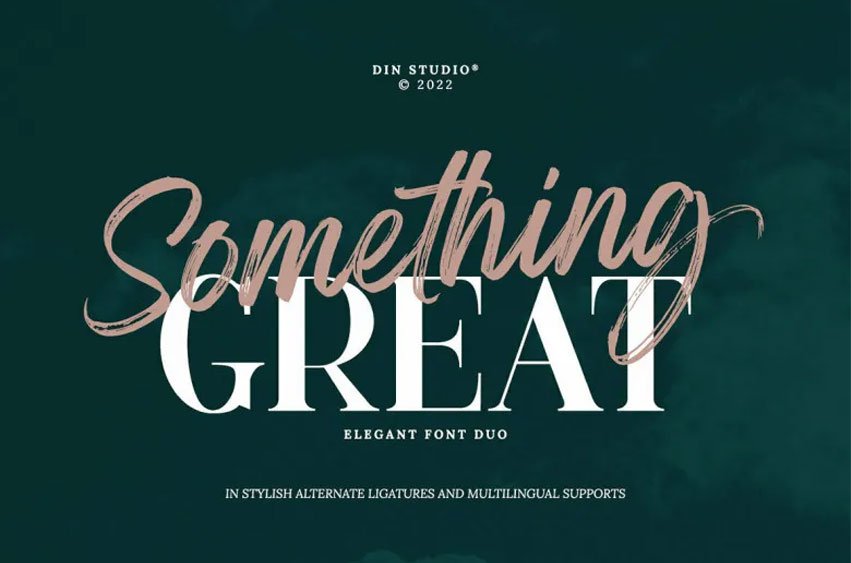
Something Great Font is an exquisite font duo. With the script font bringing luxury and elegance, and serif providing contemporary style.
Both fonts can be worn together to form an eye-catching set or individually for unique styles – great for designs, presentations, branding campaigns, quotes invitations website designs as well as invitations. It makes your designs shine.